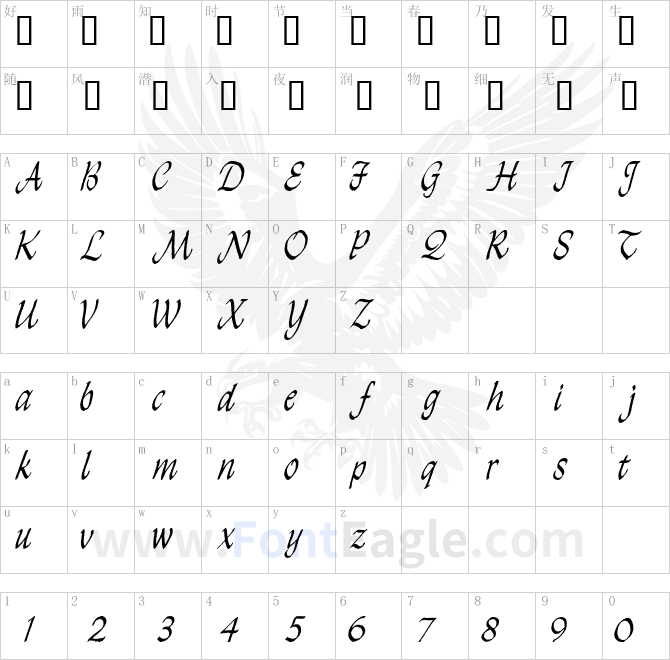
- Font name:PC Script
PC-Script is a great font, widely used in graphic design, single-page menu design, poster design and other fields, and is deeply loved by designers.PC-Script download.